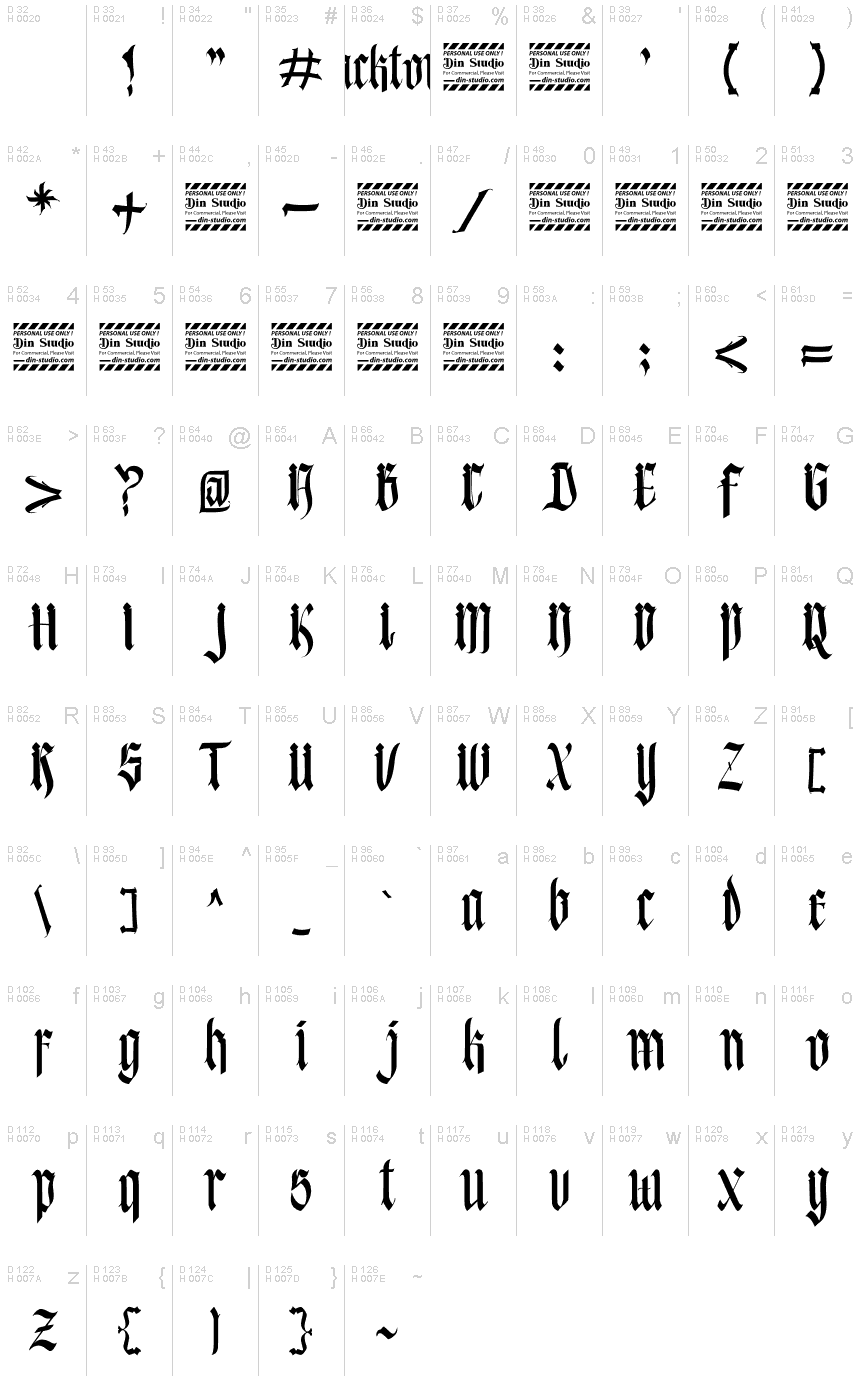
Blacktones, designed by Din Studio, is a captivating gothic font with a medieval touch. Its extra-condensed width exudes an air of elegance and sophistication. With its big loopy letters, this blackletter font is perfect for injecting a whimsical charm into your designs.
Whether it's presentations, branding projects, quotes, invitations, website illustrations, or any other creative endeavor, Blacktones will definitely captivate your audience and leave a lasting impression.
Let this unique font be the secret ingredient that takes your designs from ordinary to extraordinary.